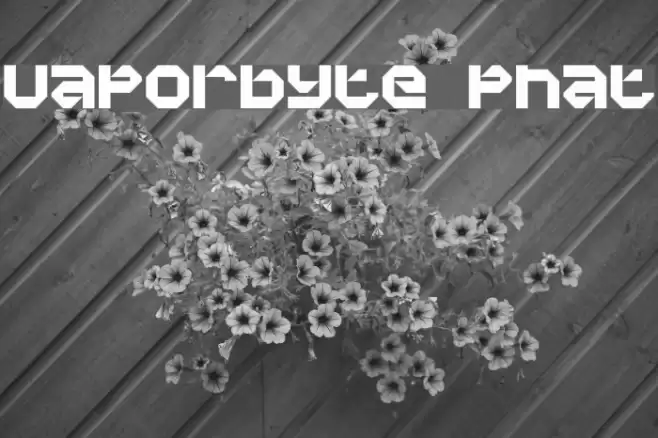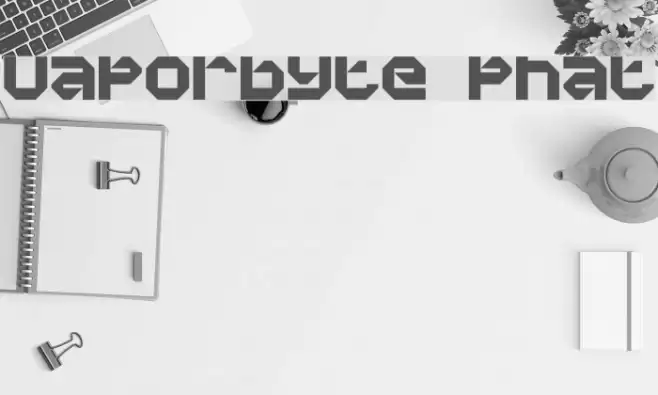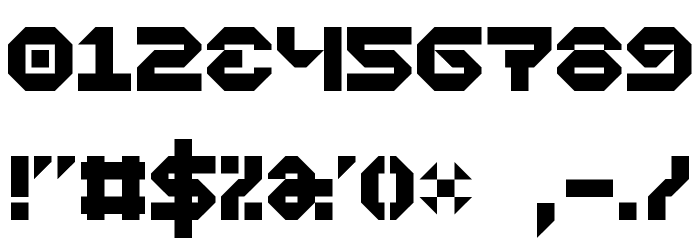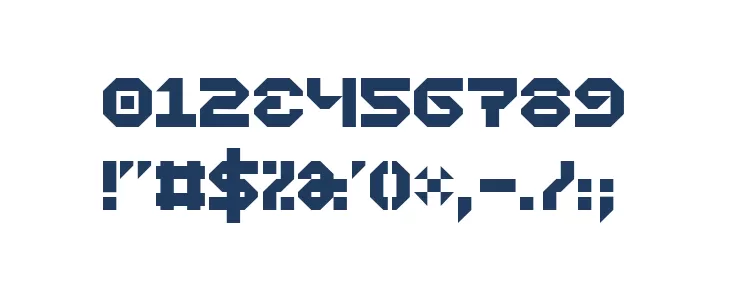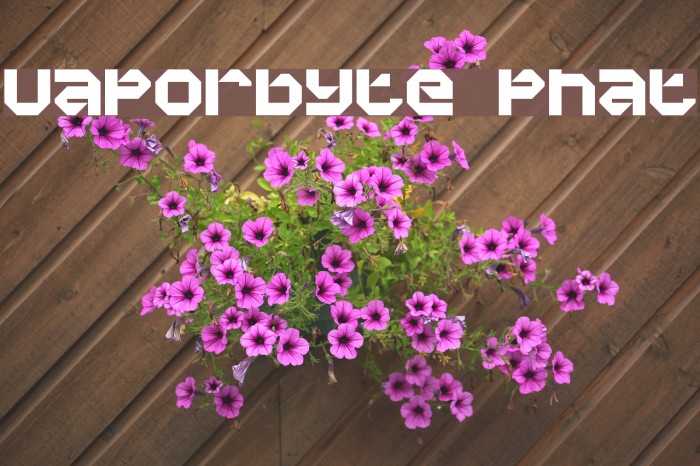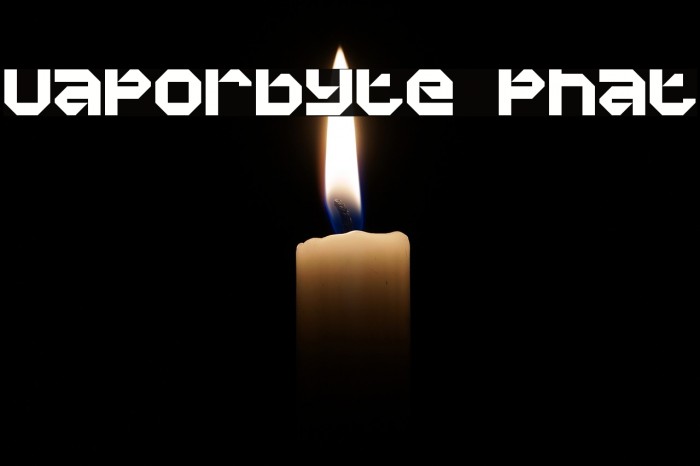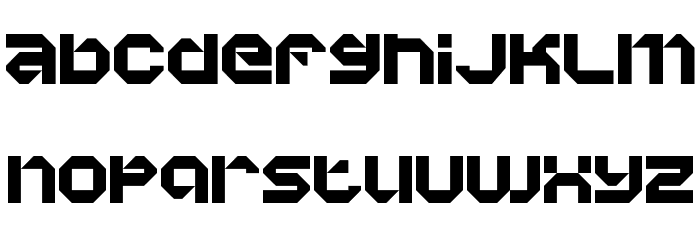
Vaporbyte Phat Font
Vaporbyte Phat Description
This font features a bold, geometric design with a futuristic and digital aesthetic. The characters are constructed with sharp angles and straight lines, giving it a blocky and robust appearance. The uppercase and lowercase letters maintain a consistent style, emphasizing uniformity and symmetry. The numbers and special characters follow the same design principles, ensuring a cohesive look across all glyphs. This font is ideal for projects that require a modern and edgy feel, such as technology-related branding or digital art.
A bold, geometric font with a futuristic and digital aesthetic from Futuristic fonts.
- Proposed Projects: Ideal for technology branding, digital art, video game design, and sci-fi themed projects.